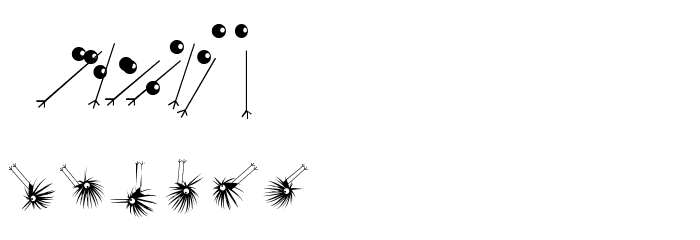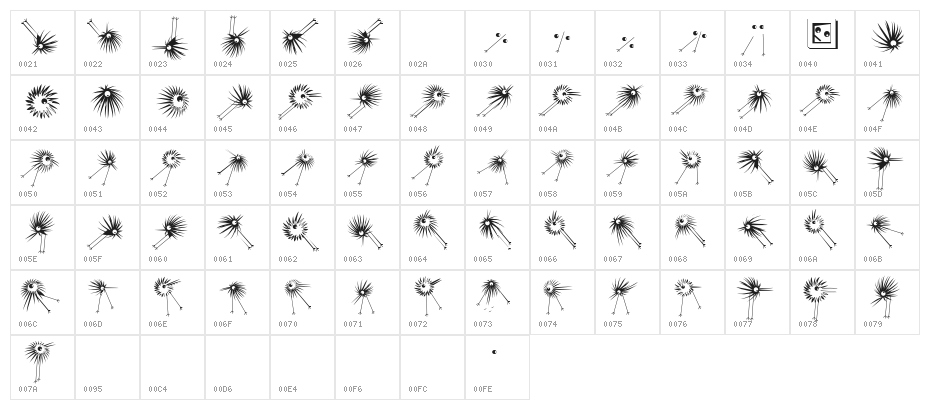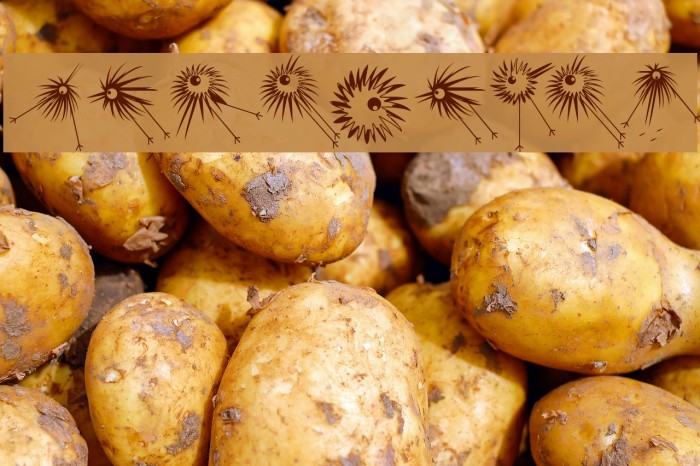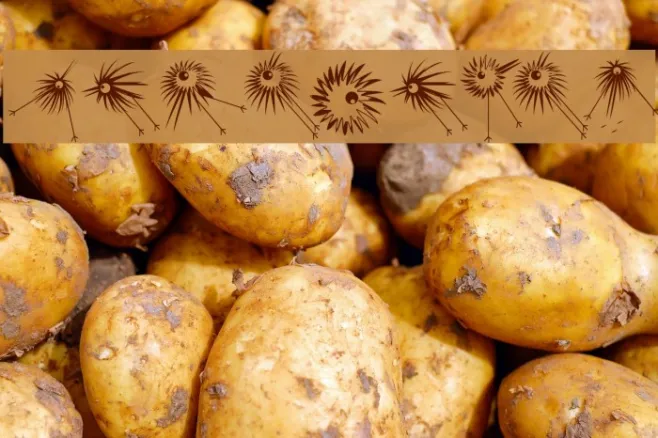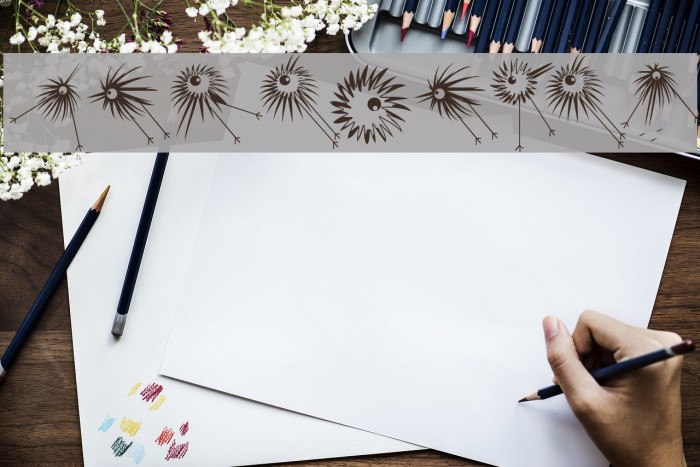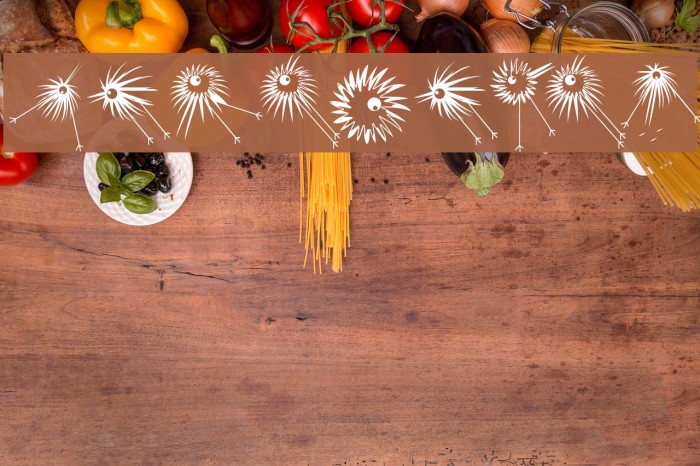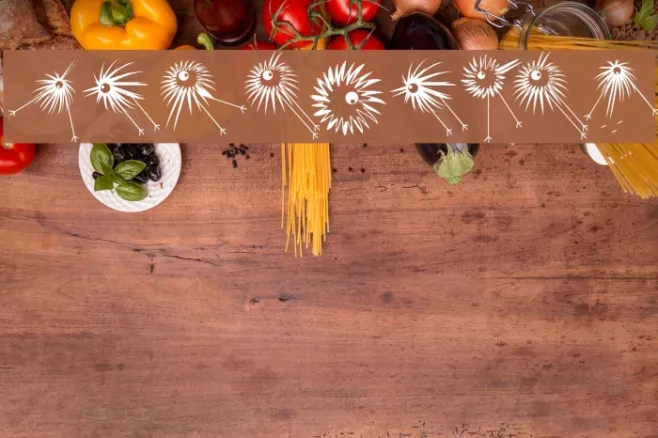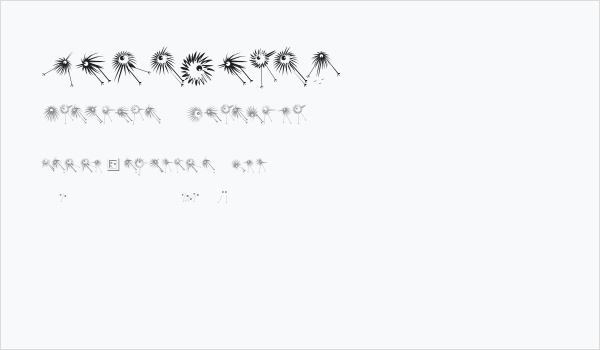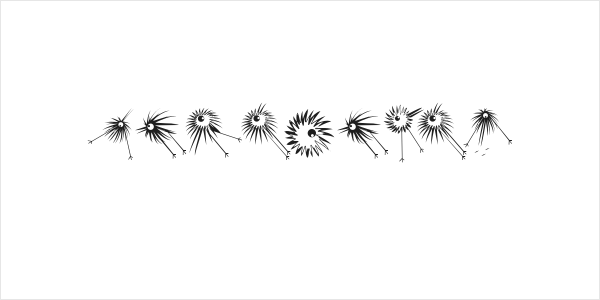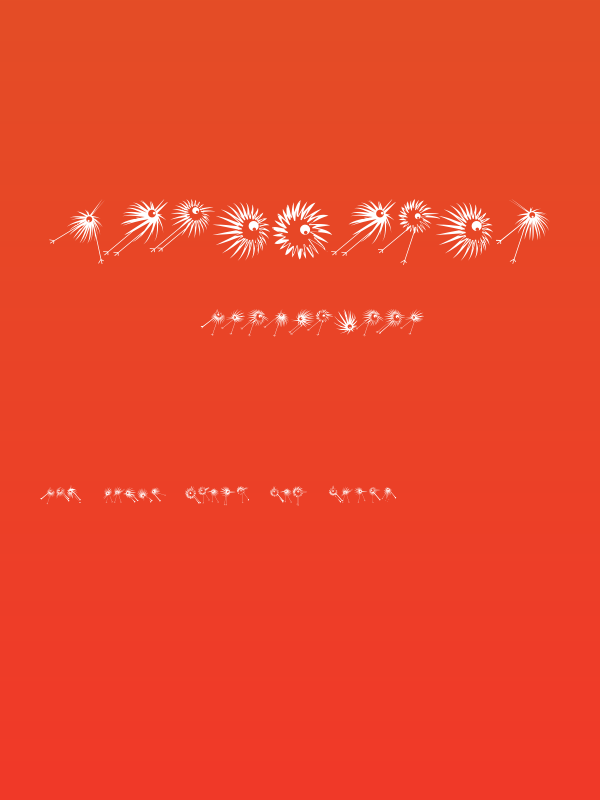
WildBirds Font
WildBirds Description
This unique and whimsical font features characters designed to resemble stylized birds, each with a circular body and spiky feather-like extensions. The playful design incorporates thin legs and small feet, giving the appearance of birds in various poses. The font is highly decorative, with each letter and symbol crafted to maintain the bird theme, making it ideal for creative and artistic projects. The characters are consistent in their imaginative style, offering a cohesive look across the alphabet and special symbols.
| Proposed Projects | Ideal for children's books, playful branding, greeting cards, and artistic posters. |